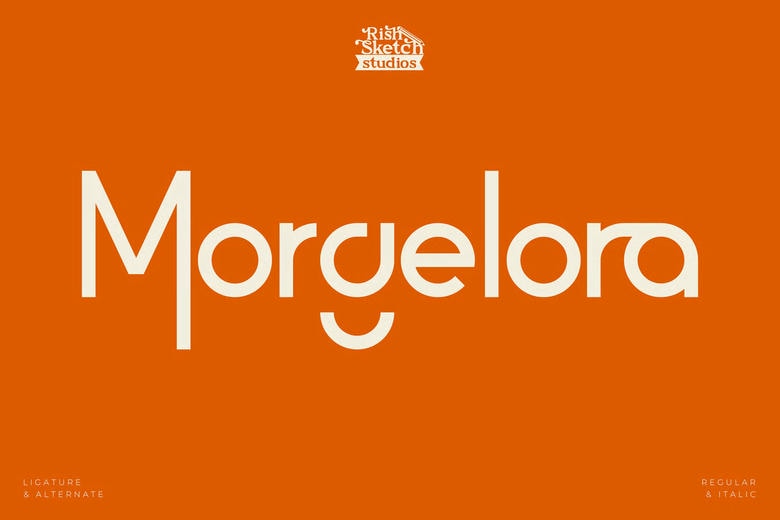
Morgelora Font
Morgelora Font is a premium Modern Sans Serif Font. This typeface is perfect for elegant logos, branding, travel promotions, layout magazines, beauty products, product packaging, quotes, or simply as a stylish text overlay onto any background image.
Morgelora Sans Serif Font